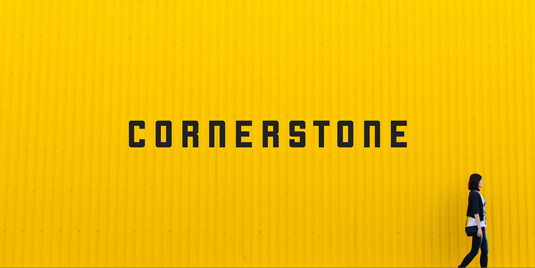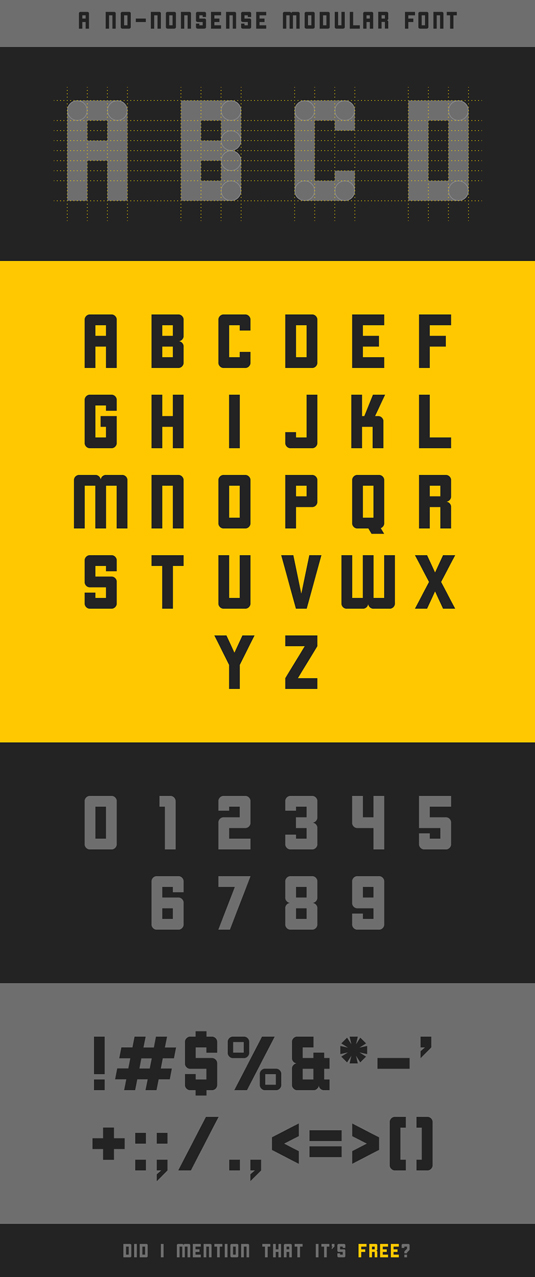
Font of the day: Cornerstone
Cornerstone by Zac Freeland
A no-nonsense modular font, Cornerstone was created by graphic designer Zac Freeland. An eye-catching design, Cornerstone is great for headlines, posters and much more.